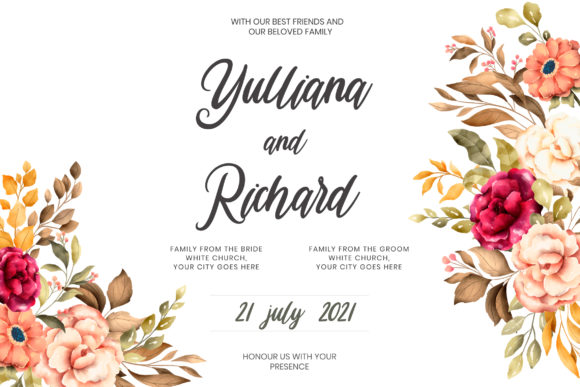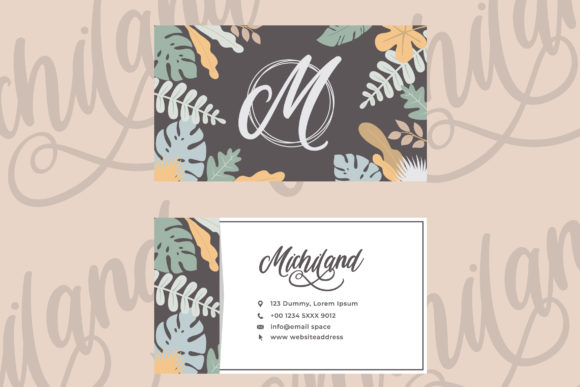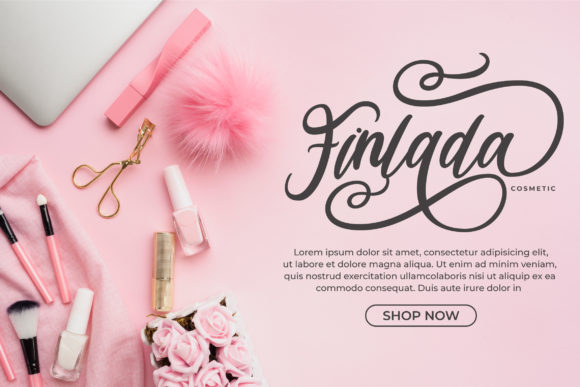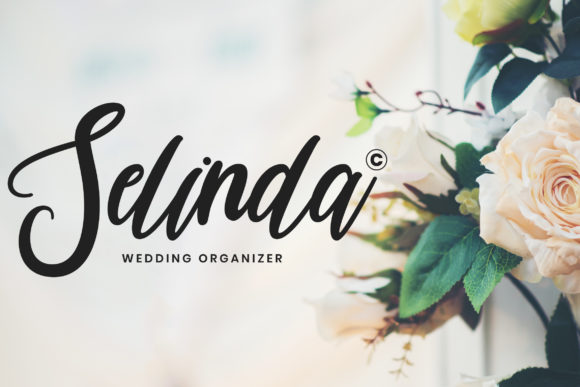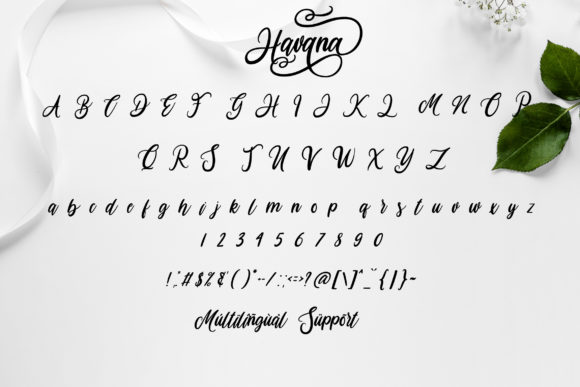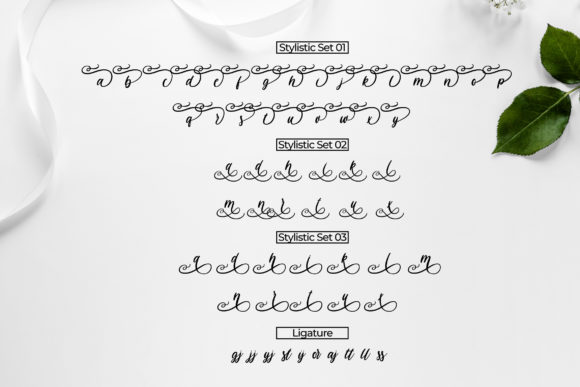
Discover the Timeless Charm of the Havana Font
Have you ever stumbled upon a font that makes you feel like you’ve discovered a hidden treasure? For many designers, that moment comes when they lay eyes on the enchanting Havana Font. Its soft, hand-lettered script is like a warm hug for the eyes, inviting you to create something truly special.
As a versatile and elegant font, the Havana Font is perfect for crafting beautiful wedding invitations, stunning stationery, captivating social media posts, and adorable greeting cards. Whether you’re a seasoned designer or just starting out, this font is sure to become your go-to companion for all your creative endeavors.
Havana Font Key Features
- Unique Characteristics: This font features a unique blend of Art Deco and Cuban influences, making it perfect for projects requiring a touch of elegance and sophistication.
- Font Style: The font has a cursive, script style with ornate details, adding a touch of luxury and refinement to any design.
Havana Font Review
The Havana Font is a beautiful and elegant script font that can add a touch of sophistication to any design project. ✨ One of the things that works well is its versatility – it can be used for a wide range of applications, from invitations and wedding stationery to branding and advertising. The font’s flowing, cursive lines make it perfect for creating a sense of romance and whimsy, while its refined feel makes it suitable for more formal occasions.
- ✨ Elegant and refined feel
- ✨ Versatile and suitable for various applications
- ✨ Beautiful, flowing lines
However, there are a few limitations to consider. ⚠️ The font can be difficult to read at small sizes, which may make it less suitable for body text or small print. Additionally, the font’s elegance can sometimes come across as overly ornate, which may not be to everyone’s taste.
- ⚠️ Difficult to read at small sizes
- ⚠️ Can be overly ornate
Overall, the Havana Font is a beautiful and versatile script font that can add a touch of elegance to any design project. While it may have some limitations, it is well worth considering for projects where a refined, romantic feel is desired.
Getting the Most Out of the Havana Font
To get the most out of the Havana Font, use it for titles and headings in designs, presentations, and documents. This font is best used for elegant and sophisticated designs. You can also use it for quotes, captions, and other short text elements.
The Havana Font is commonly used for:
– Luxury brand designs
– Fashion and beauty branding
– High-end product packaging
Alternatives to Havana Font
Playfair Display is an elegant, high-end serif font. It is ideal for use in luxury branding, magazines, and fine art projects. The font features intricate details and a sophisticated feel, making it a great choice for designers who want to convey a sense of luxury and refinement.
Compared to Havana Font, Playfair Display has a more formal and traditional feel, while Havana Font has a more vintage and eclectic feel. Playfair Display is also more ornate and detailed, while Havana Font is more understated.
Great Vibes is a beautiful, modern script font. It is perfect for use in wedding invitations, social media graphics, and other projects where a touch of elegance and sophistication is desired. The font features a flowing, handwritten feel that is both stylish and timeless.
Compared to Havana Font, Great Vibes has a more fluid and dynamic feel, while Havana Font has a more static and vintage feel. Great Vibes is also more legible and readable, while Havana Font can be more challenging to read due to its ornate details.